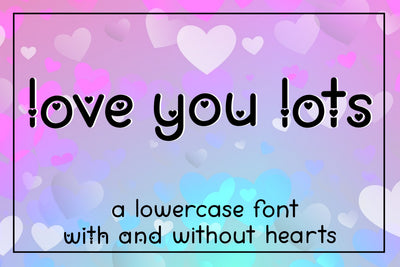
Love You Lots - A lowercase font with and without hearts
Love You Lots is a fun handwritten font made up of lowercase letters a-z (with hearts), lowercase letters a-z (without hearts), numbers 0-9, and accented characters. Mix and match the 2 styles to get the perfect look for your project!
Lowercase keys = with hearts
Uppercase keys = without hearts